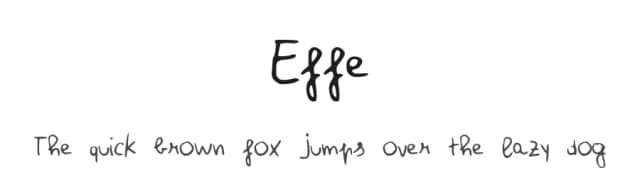
About Effe New Version Font
Effe New Version is a medium-weight handwritten script designed by Maria Felicia, bringing authentic pen-drawn letterforms to a wide range of creative projects. With 143 glyphs and support for 133+ Latin-based languages, this typeface works equally well for English-language designs and international applications. The script's natural, flowing stroke quality makes it ideal for greeting cards, wedding invitations, social media posts, and small-batch product labels where a personal touch genuinely enhances the brand voice and connection with audiences.
The handwritten nature of Effe New Version allows designers to add warmth and approachability to otherwise formal layouts. Its medium weight sits comfortably between delicate and bold, lending itself to headlines, signature elements, and decorative text without overwhelming supporting fonts. Whether crafting stationery for a craft business, designing packaging for artisanal goods, creating headers for a lifestyle blog, or building branding for handmade product Etsy shops, this script brings genuine character to both digital and print work.
Effe New Version Font is a script font that shines as a display or heading face. Pair it with a clean sans-serif or serif font for body text β the contrast creates a clear hierarchy while the two styles stay balanced and easy to read.
Effe New Version Font